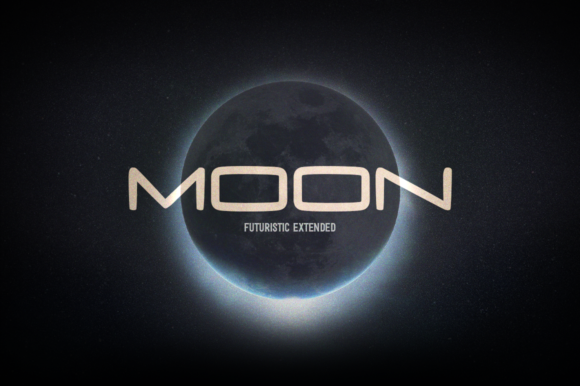
Introducing Moon Font, the ultimate choice for adding a captivating touch to your designs and unleashing your creativity! Created by the talented DonMarciano, this sans serif font is carefully crafted with only uppercase and standard punctuation, along with multilingual support for international characters.
With its futuristic vibes and mesmerizing sci-fi look, Moon Font is here to take your projects to new heights. Its clean rounded uneven lines bring a sense of uniqueness and elegance, making it the perfect choice for any design that aims to stand out from the crowd.
Looking to make a statement? Moon Font is the answer. Its captivating appeal and eye-catching aesthetics will effortlessly draw attention to your work. Whether you're designing a logo, a poster, or even a website, this font will elevate your creations to a whole new level.
Imagine the possibilities of having a font that speaks volumes on its own. Moon Font's modern and sleek design creates an instant connection with your audience, evoking emotions of curiosity and intrigue. It's the secret ingredient that transforms a simple piece of text into a work of art.
But that's not all! Moon Font provides the versatility you need to bring your wildest ideas to life. From futuristic book covers to out-of-this-world movie titles, this font adapts effortlessly to any project with a unique theme. It's the missing puzzle piece that adds that extra touch of magic to your designs.